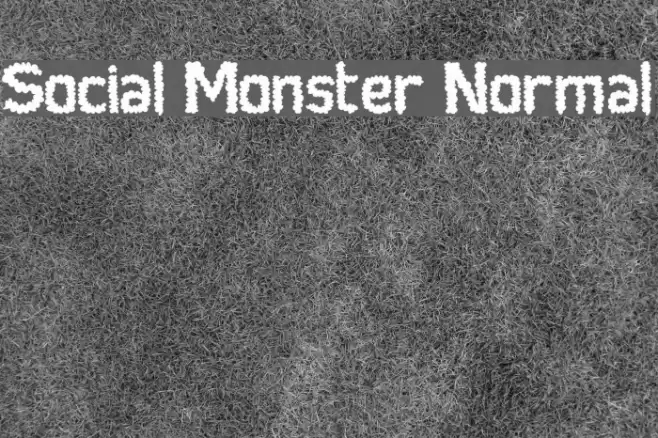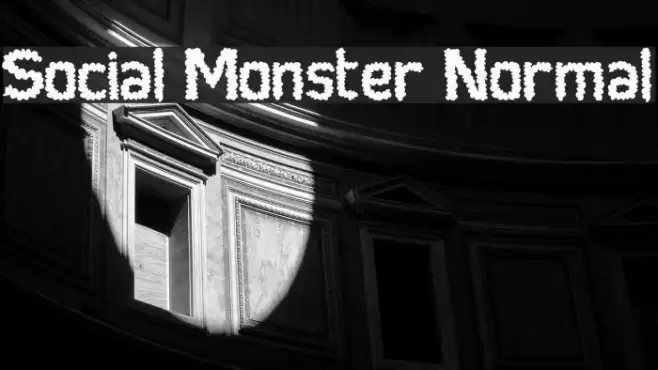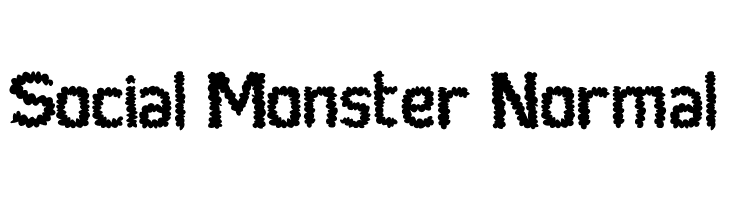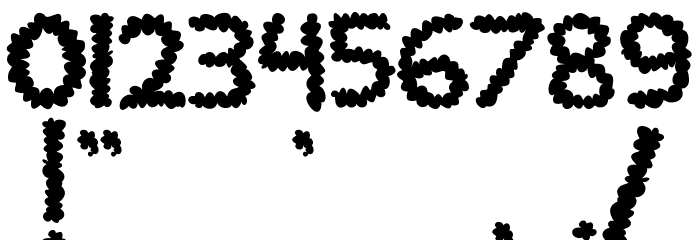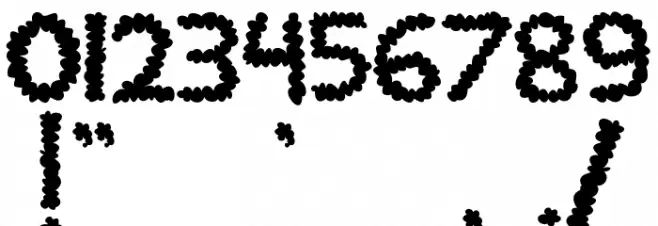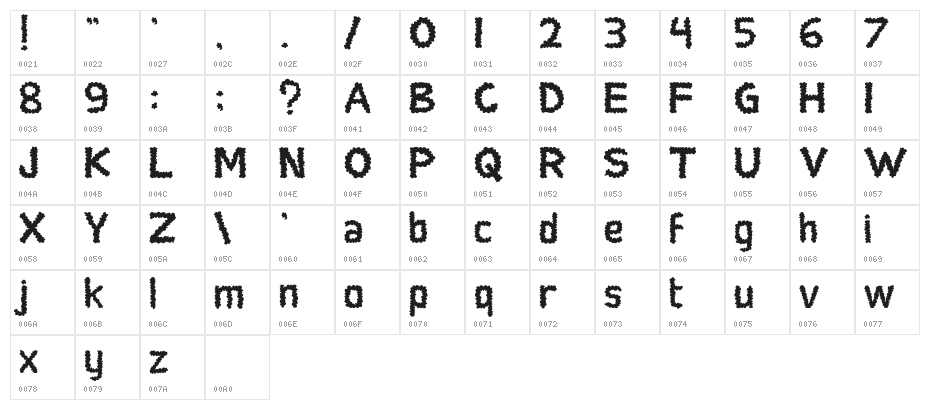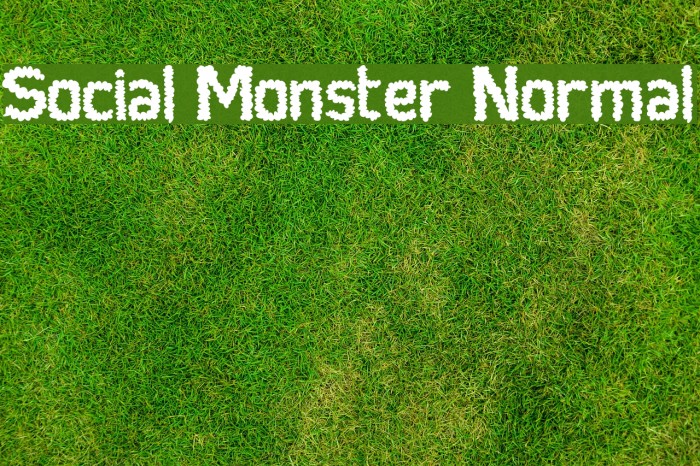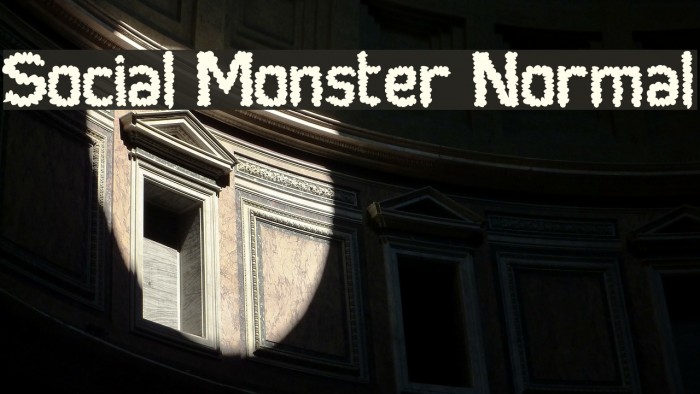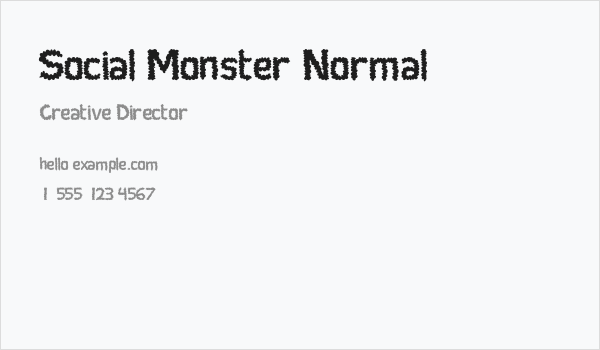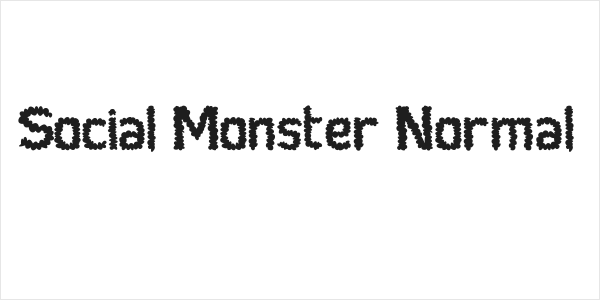
Social Monster Normal Font
Social Monster Normal Description
This font features a playful and unique design, characterized by its bubbly and rounded shapes. Each character is composed of a series of small, circular elements that give it a textured and whimsical appearance. The font maintains a consistent weight throughout, providing a bold and eye-catching look. Its distinctive style makes it stand out, making it ideal for creative and fun projects. The characters are evenly spaced, ensuring readability despite their unconventional form. This font is perfect for projects that require a touch of creativity and playfulness.
A playful, bubbly font with rounded, textured characters from Uncategorized fonts.
- Proposed Projects: Ideal for children's books, playful branding, party invitations, and creative posters.
- Overall Style: Playful, Creative